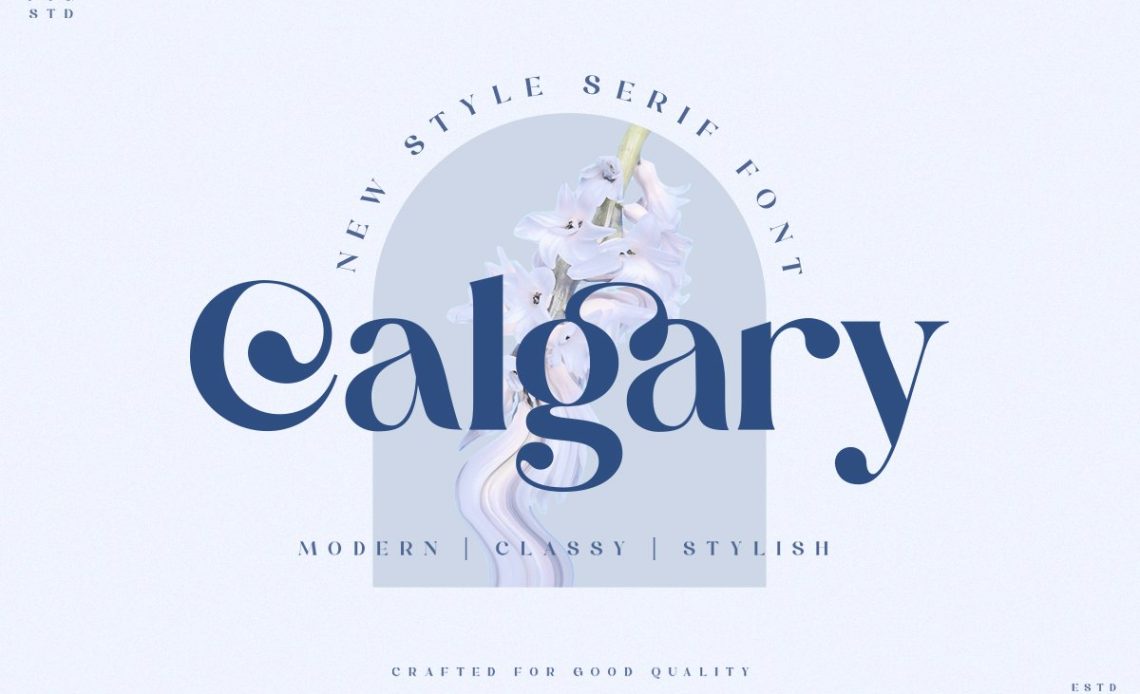
Calgary is the font you've been searching for if you're looking for the perfect font to enhance your fashion blog. This stylish and sophisticated font is created by the talented designers at Pentagonist Studio, and is sure to take your website to the next level.
Inspired by modern serif typefaces, Calgary is a classy and sleek font that is perfect for fashionistas who want to elevate their online presence. With its unique features and versatile design, Calgary is a font that can be used for a wide variety of projects, from blog headers to logos and more.
But Calgary isn't just a font - it's a work of art. With its elegant and refined design, Calgary is sure to impress your readers and clients alike. And with its easy-to-use software requirements, you don't need any special skills or programs to start using it today.